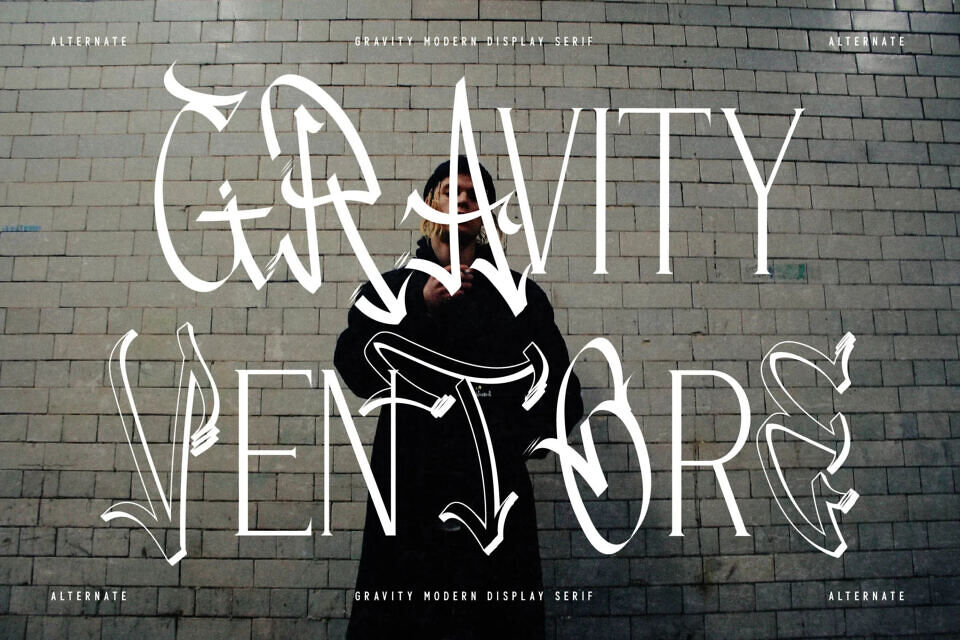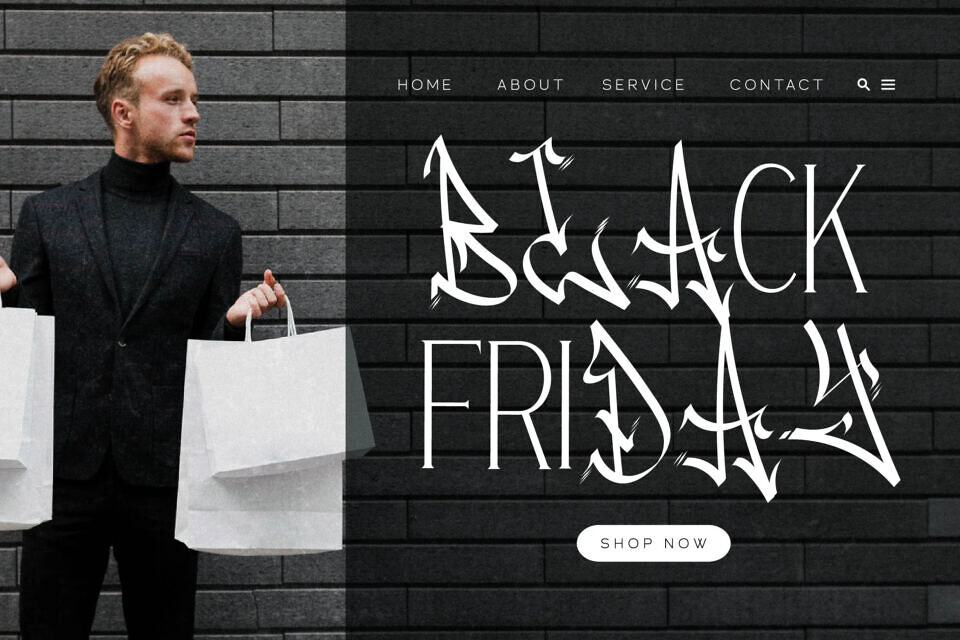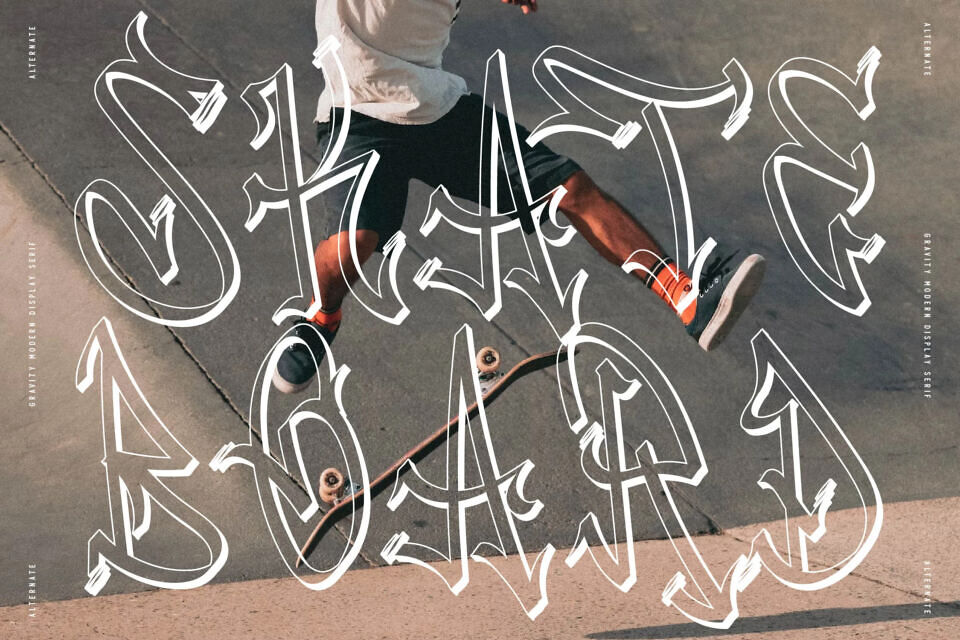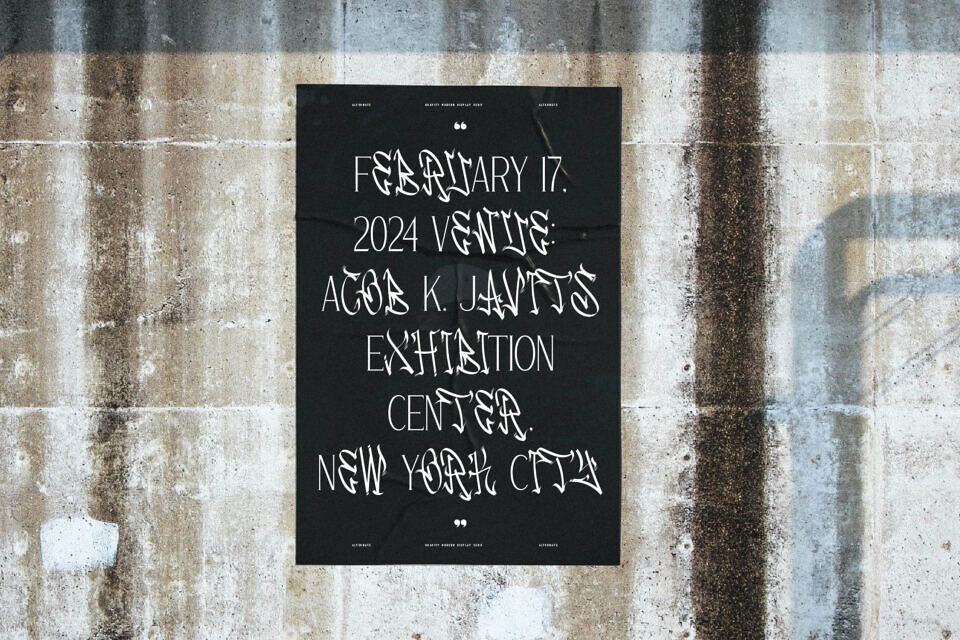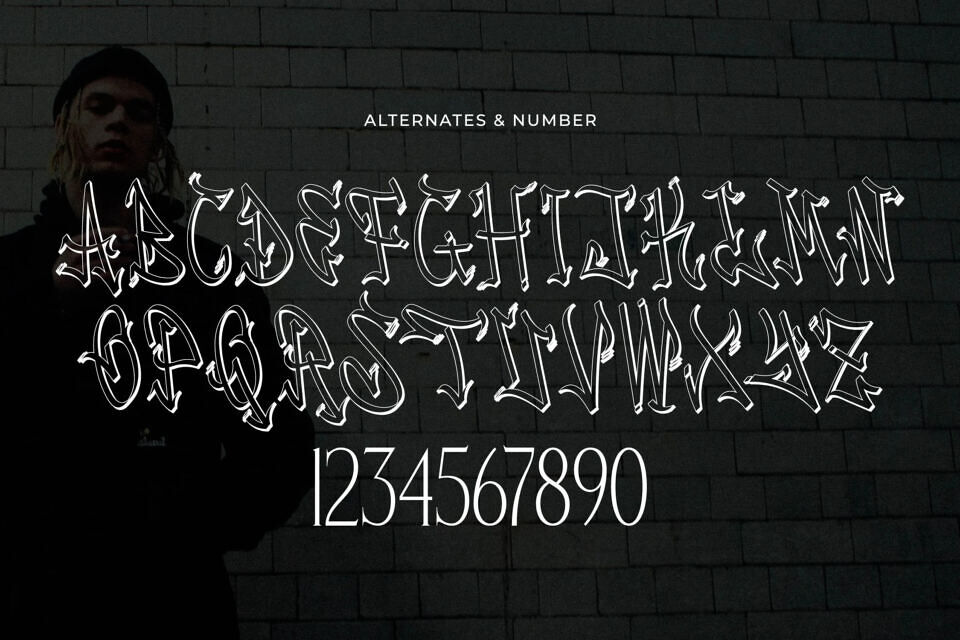
Gravity Ventore Font
Proudly present Gravity Ventore Typeface, created by Storytype, a serif modern and classic typeface that has own unique style & modern look.
This typeface is perfect for an elegant & luxury logo, book or movie title design, fashion brand, magazine, clothes, lettering, quotes, and so much more.
Designed by: Letterena Studios, Storytype Studio